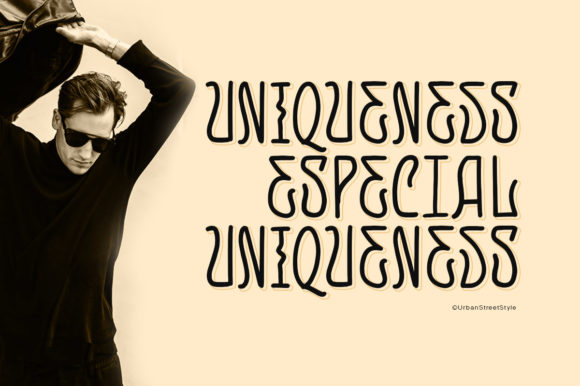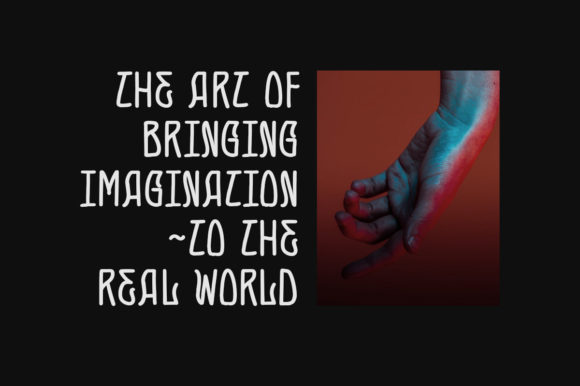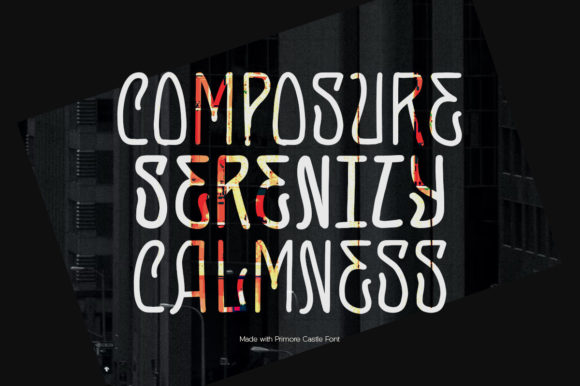
Introduction to Primore Castle Font
Primore Castle is a unique and wavy looking display font.
It is suitable for logos, headline, titles, and various informal designs such as invitations, labels, stationery, novels .
Primore Castle Font offers exceptional quality and versatility, making it a valuable addition to your design toolkit. Whether you’re creating for personal projects or commercial use, Primore Castle Font delivers professional results.